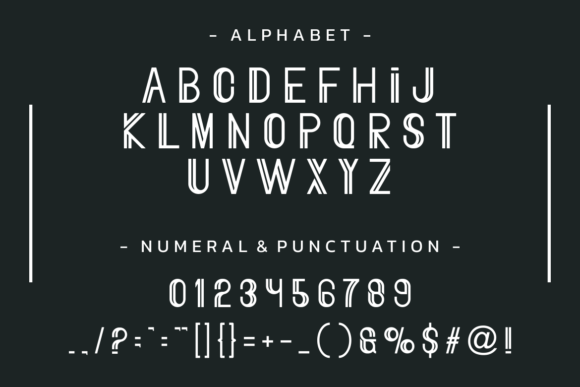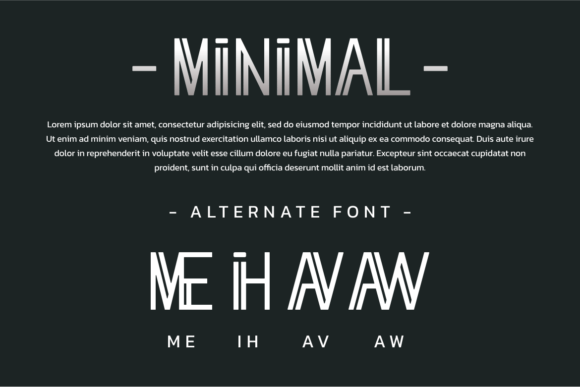
Awkirin Font: Elevate Your Designs with Modern Minimalism
In the world of typography, fonts play a crucial role in conveying messages, evoking emotions, and setting the tone for a brand or design. For designers and crafters, finding the perfect font can be a daunting task. However, if you’re looking for a modern, minimalist display font that can elevate any creation, look no further than Awkirin Font.
What is Awkirin Font?
Awkirin is a sleek and contemporary display font designed to make a statement. Its clean lines, simple shapes, and minimalist aesthetic make it an ideal choice for designers seeking a modern look. Whether you’re working on a branding project, a website, or a craft, Awkirin Font is an incredible asset to your font library.
Key Features of Awkirin Font
- Modern and Minimalist: Awkirin Font boasts a modern, minimalist design that’s perfect for creating sleek and sophisticated designs.
- Versatile: This font is versatile and can be used for a wide range of projects, from branding and advertising to web design and crafting.
- Easy to Read: Despite its minimalist design, Awkirin Font is easy to read, making it perfect for headlines, titles, and short paragraphs.
- Highly Legible: The font’s clean lines and simple shapes ensure high legibility, even at smaller sizes.
Benefits of Using Awkirin Font
So, why should you choose Awkirin Font for your next project? Here are just a few benefits:
- Elevate Your Designs: Awkirin Font can instantly elevate your designs, giving them a modern and sophisticated look.
- Stand Out from the Crowd: With its unique minimalist design, Awkirin Font can help your designs stand out from the crowd.
- Save Time: The font’s versatility and legibility mean you can use it for a wide range of projects, saving you time and effort.
Who Can Benefit from Awkirin Font?
Awkirin Font is perfect for:
- Graphic Designers: Looking for a modern, minimalist font to elevate their designs.
- Web Designers: Seeking a clean and legible font for their website projects.
- Crafters: Creating handmade products, such as signs, cards, and gifts, and wanting a unique and stylish font.
- Marketeers: Needing a font that can help their brand stand out and convey a modern, sophisticated image.
In conclusion, Awkirin Font is a modern, minimalist display font that’s perfect for designers and crafters looking to elevate their designs. Its versatility, legibility, and sleek design make it an incredible asset to any font library. Whether you’re working on a branding project, a website, or a craft, Awkirin Font is sure to impress.
Get Ready to Elevate Your Designs with Awkirin Font